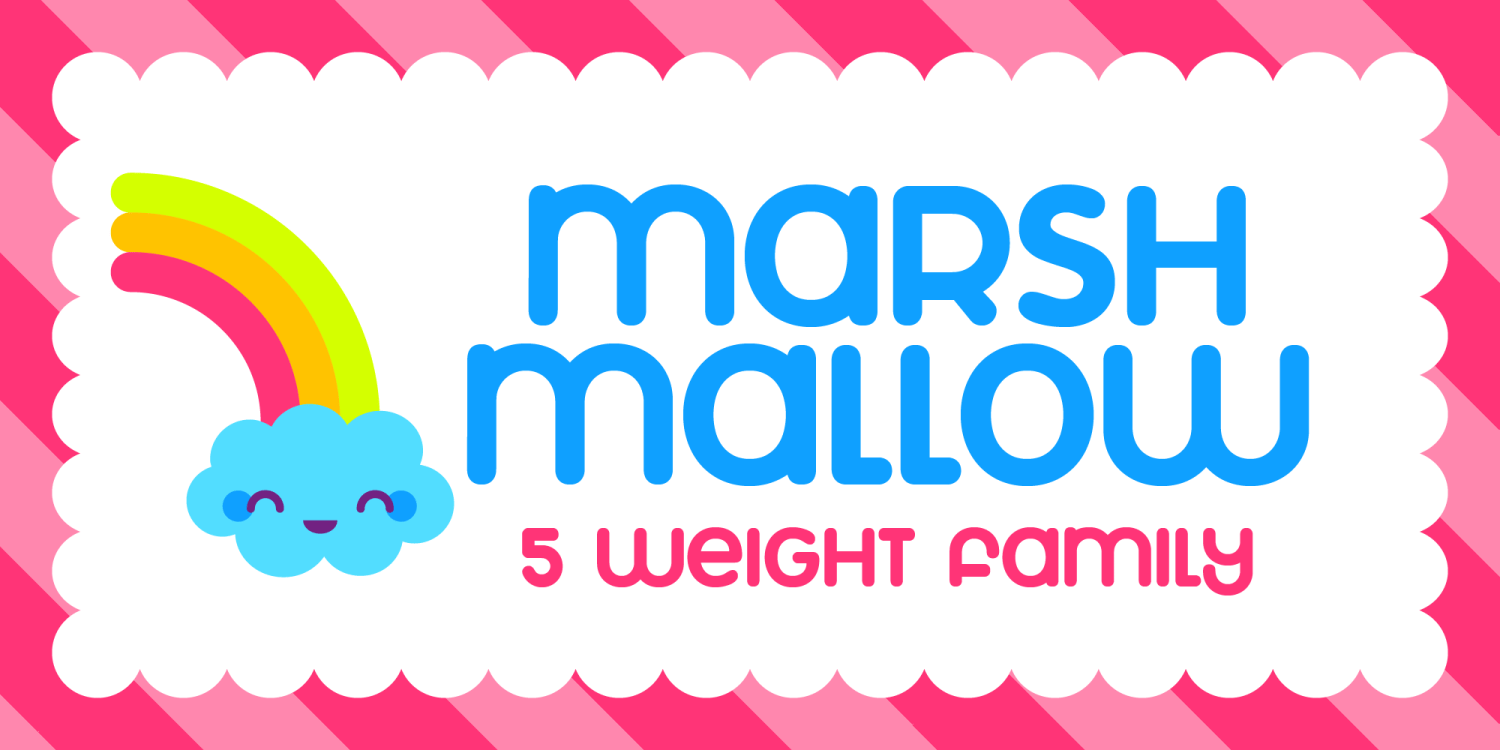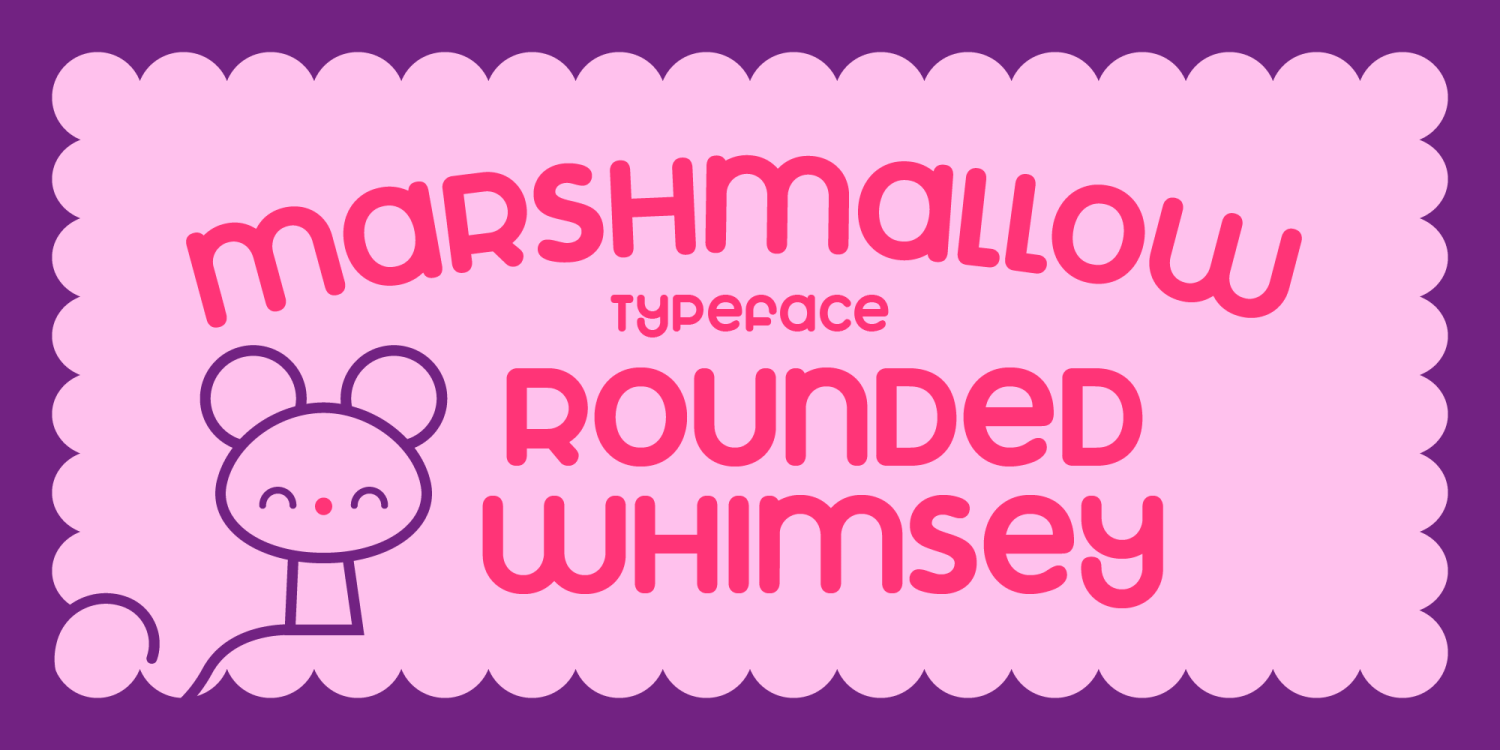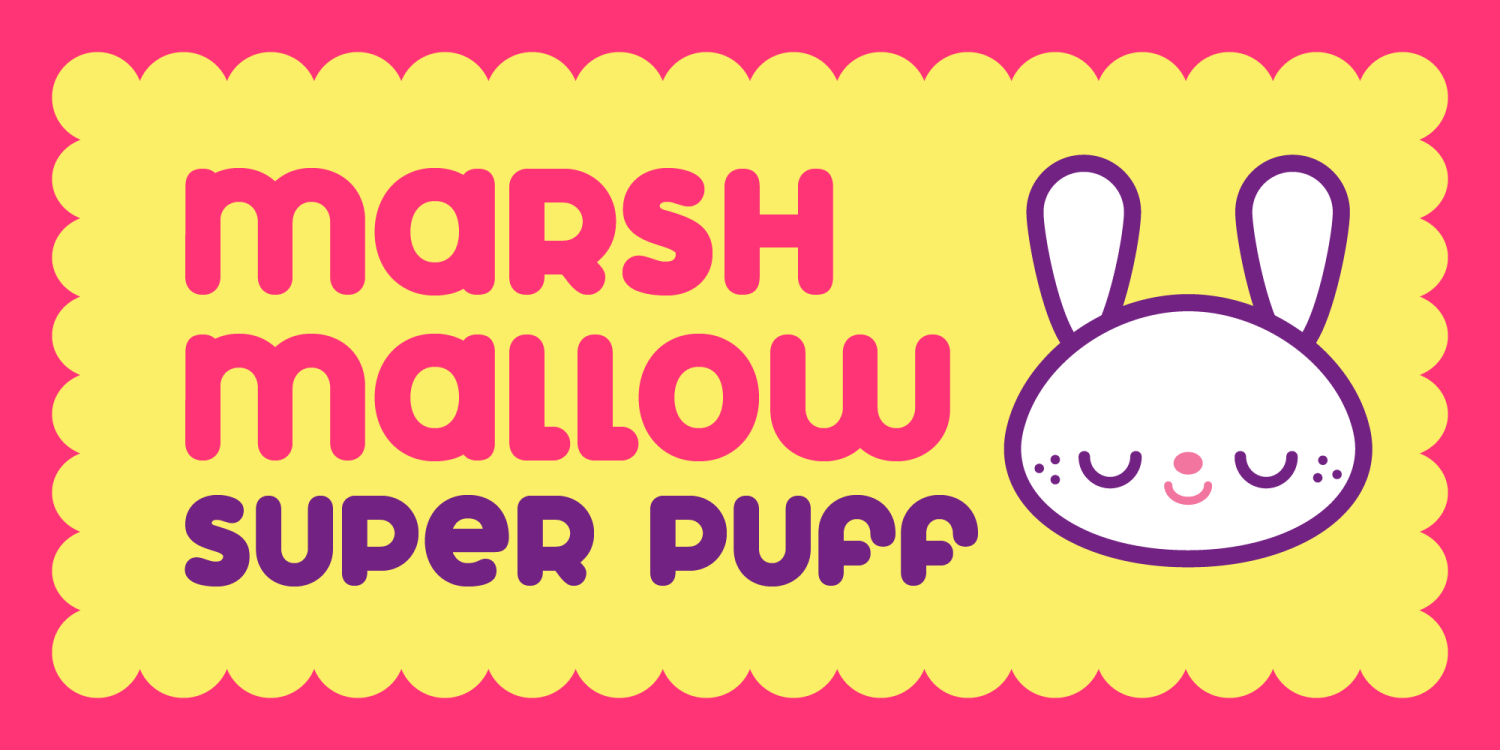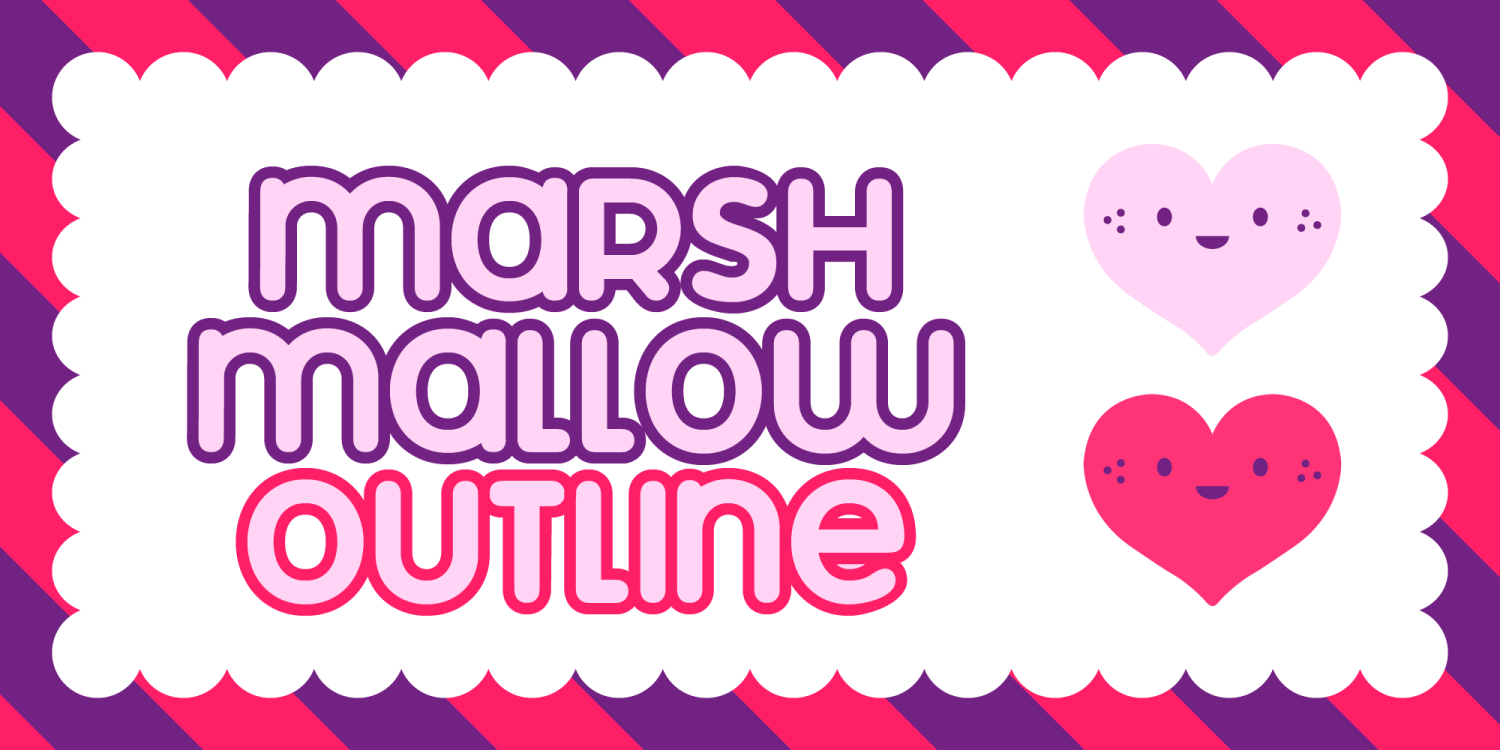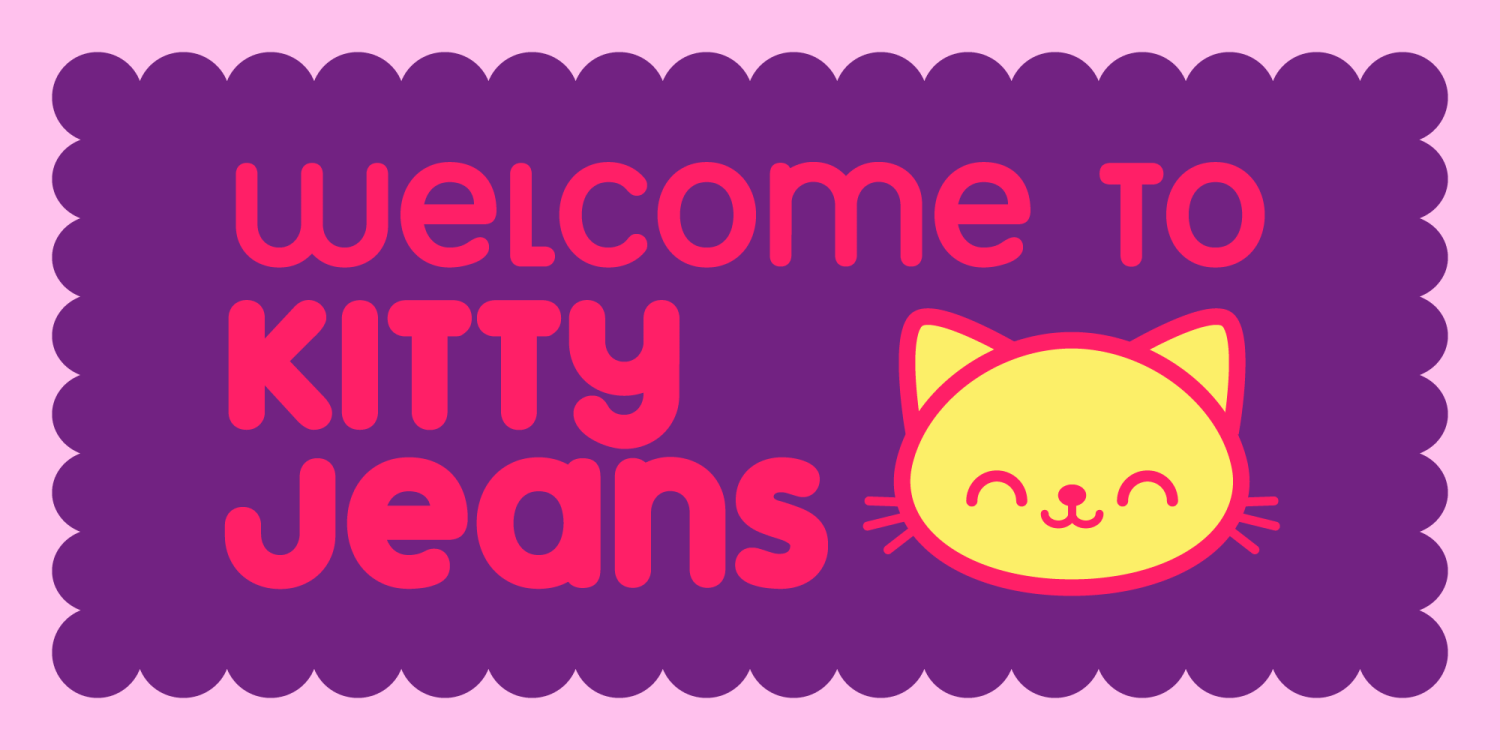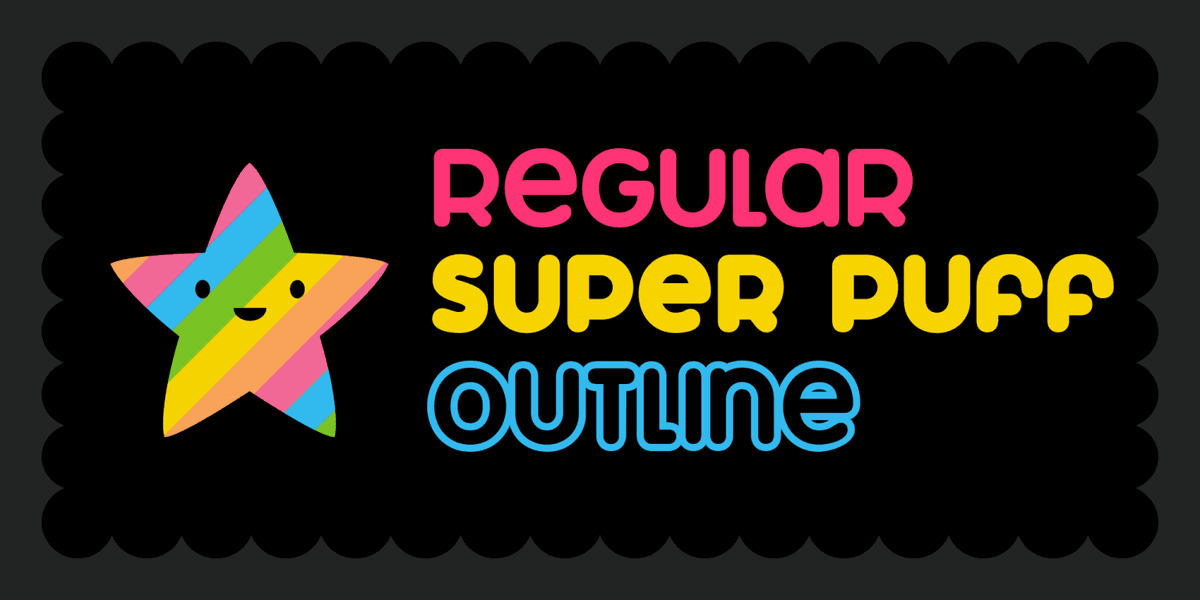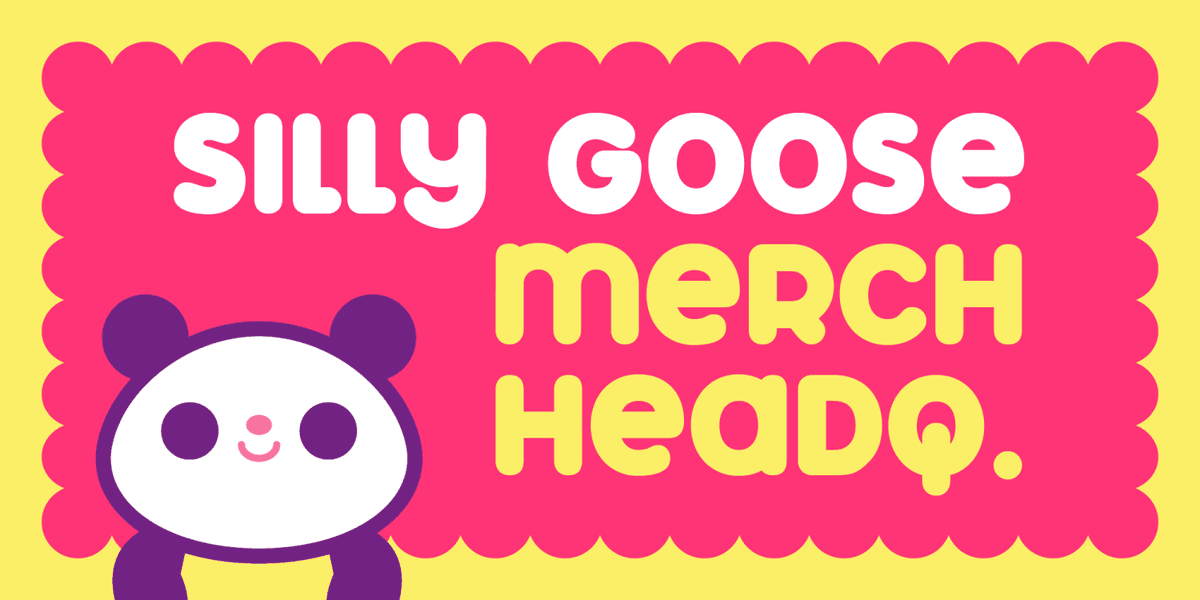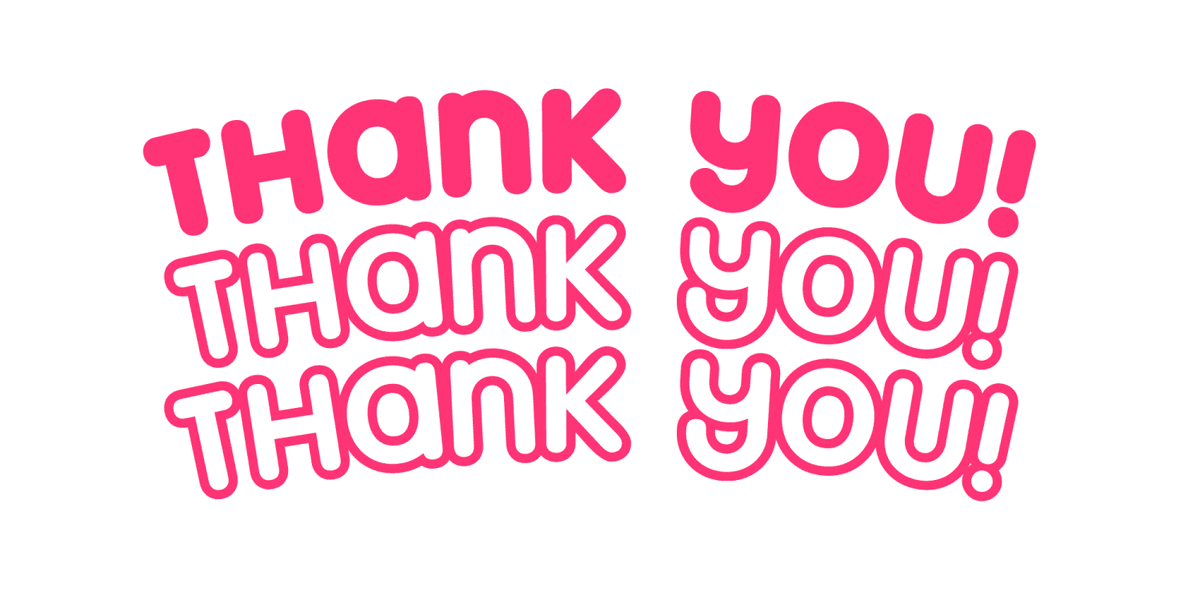
Don't underestimate the lovey dovey cuteness of this typeface. It can be dangerous when used properly. If certain shock rockers utilized this font for advertising campaigns where people were expecting dark and evil, the logic would put their mind into a tailspin. Also can be used for cutesy "I sowwy!" greeting cards.